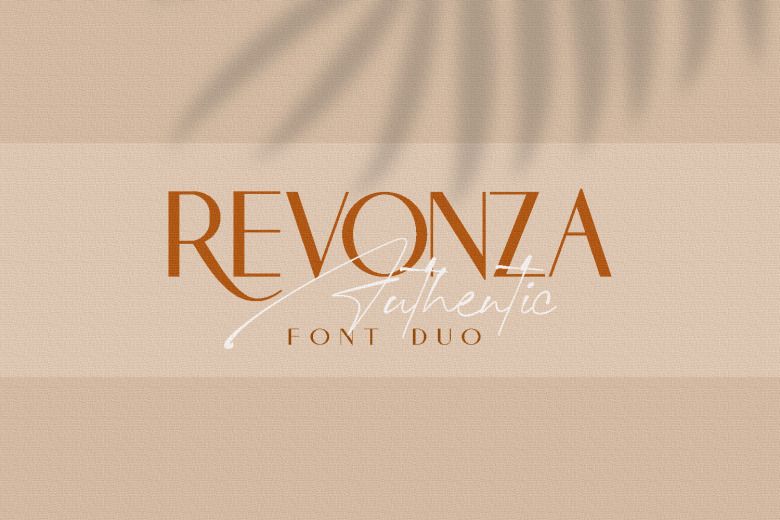
Revonza Authentic Font Duo
Revonza Authentic is an amazing duo font. It looks incredibly stunning, as well as being  extensive for various designs. Apply to your projects to share the fun! Revonza comes with full set characters (uppercase, lowercase, numeral, punctuation and alternates).